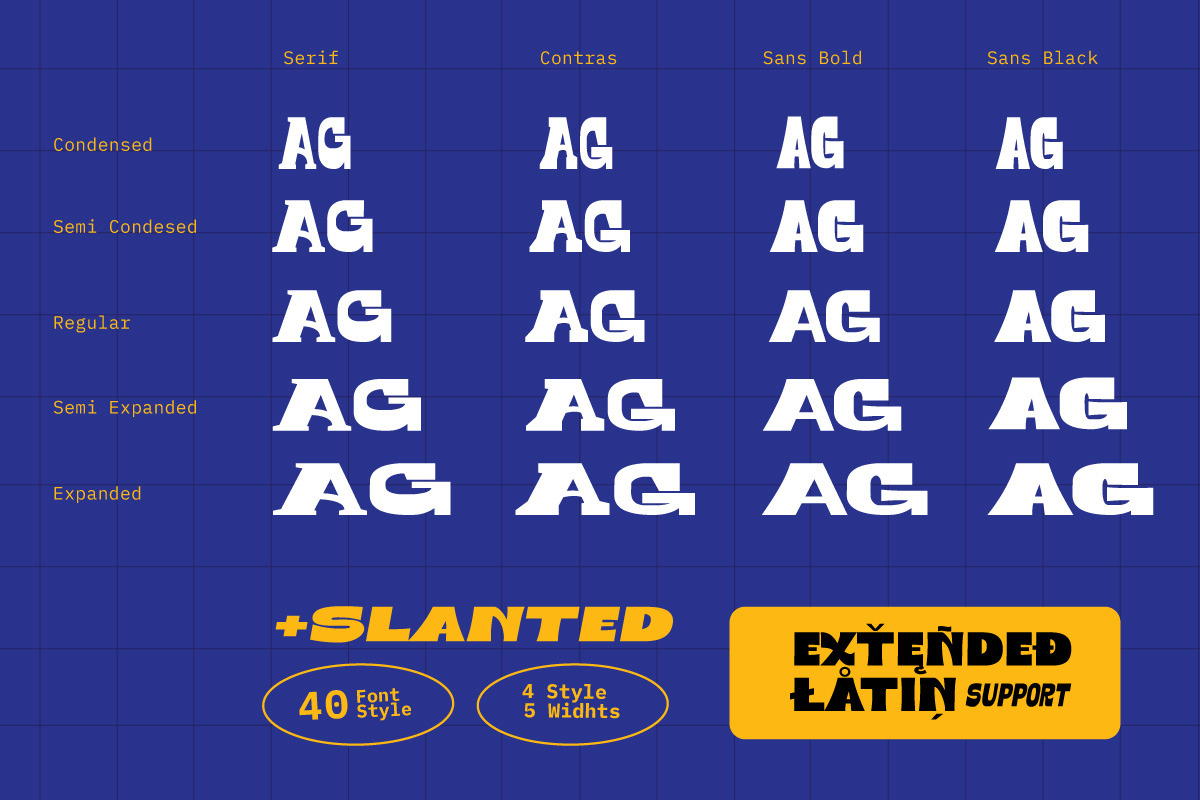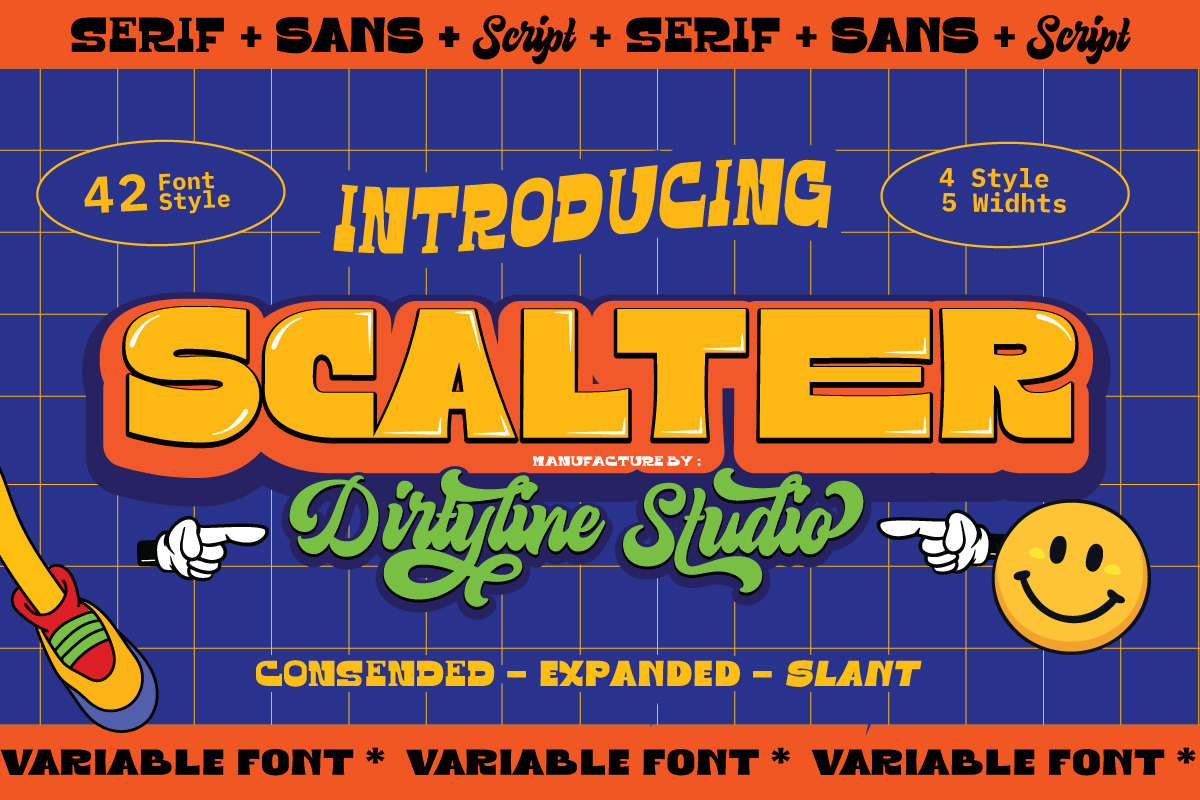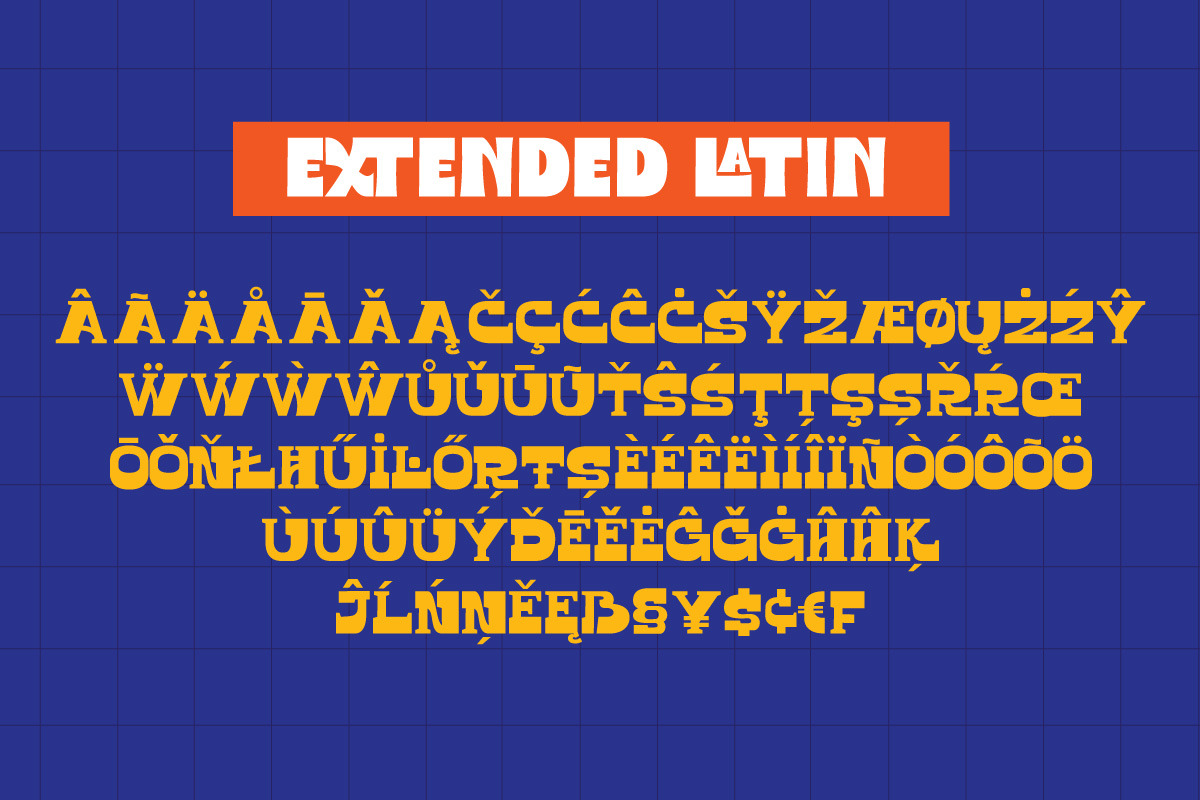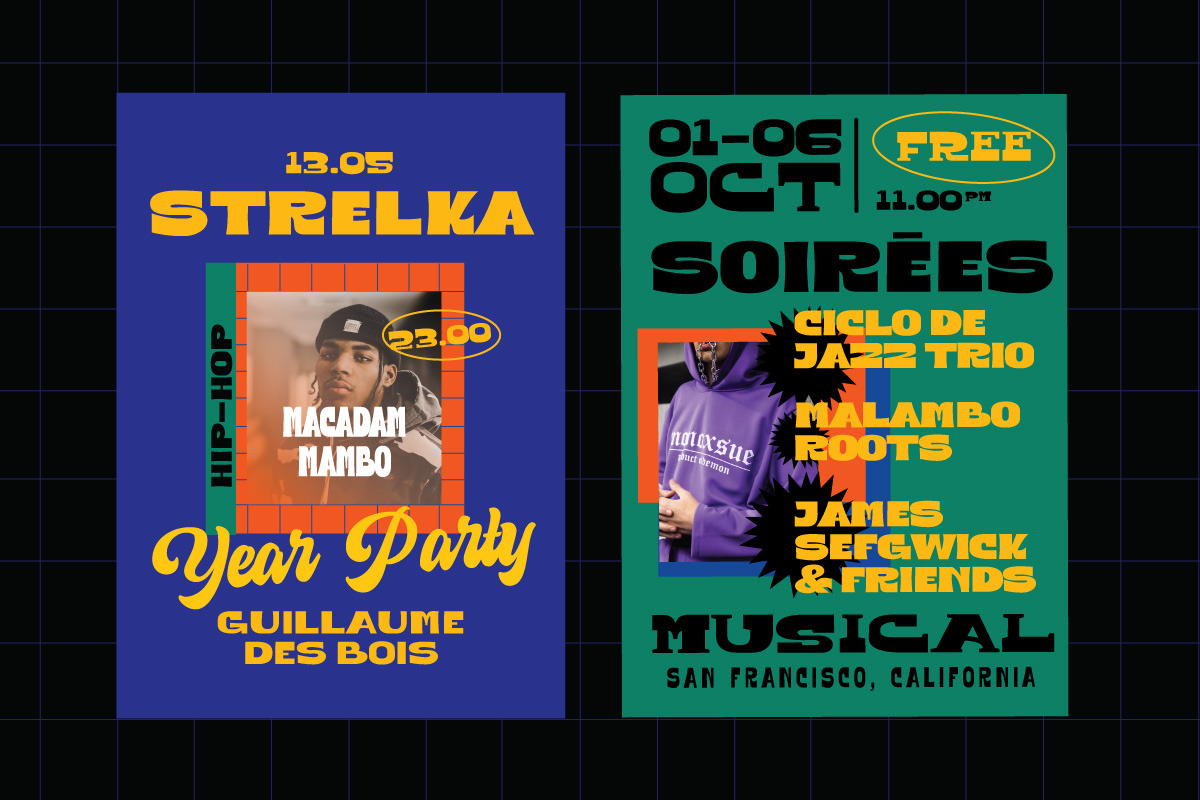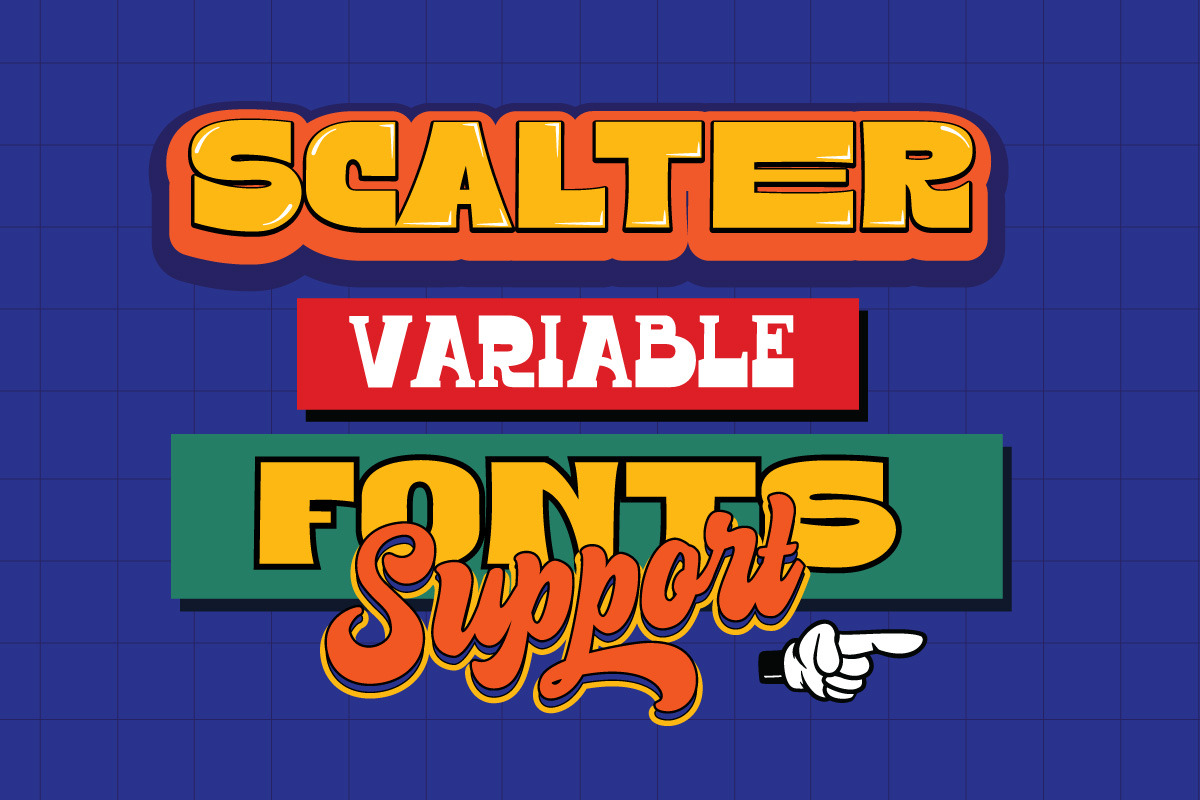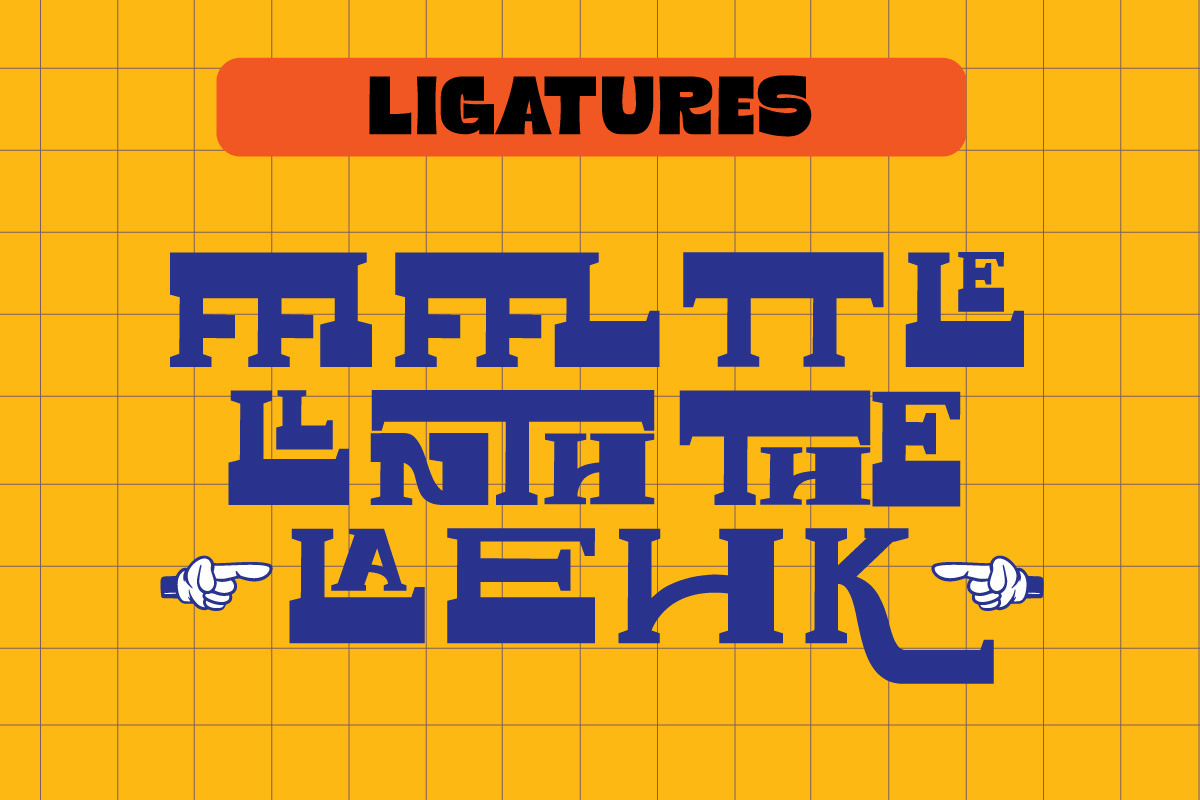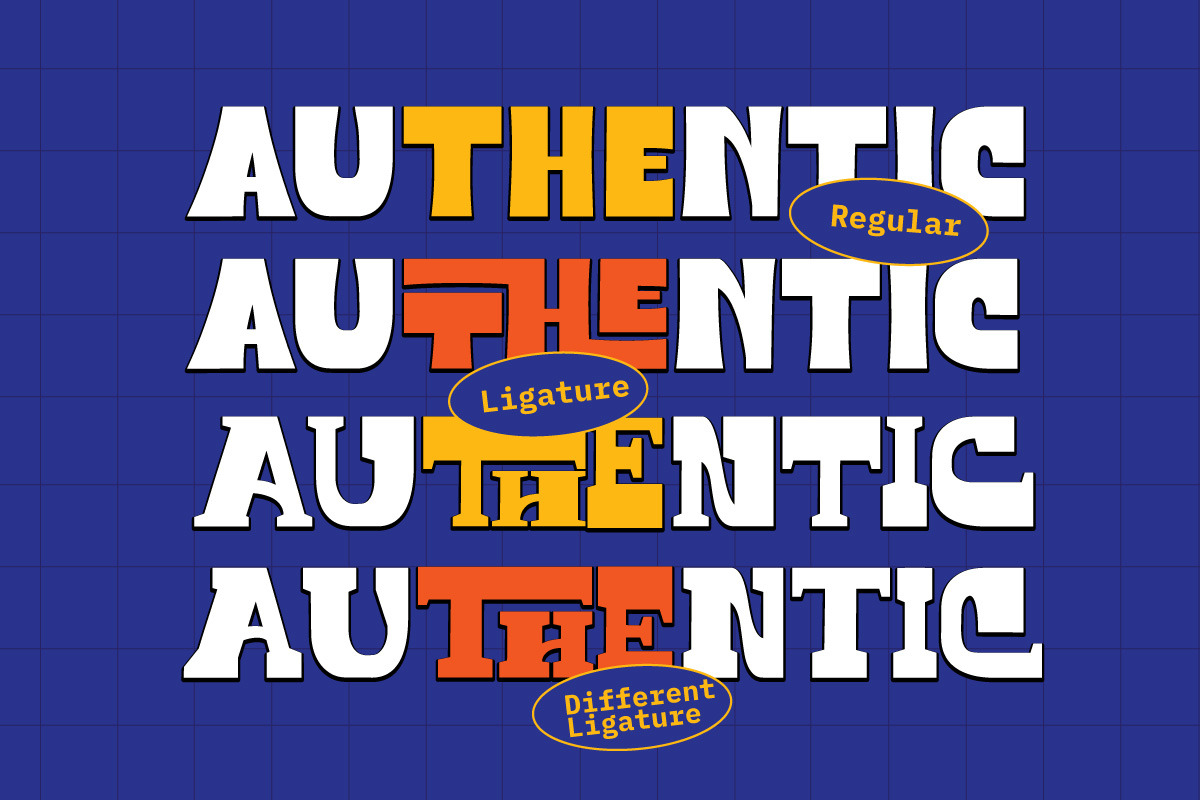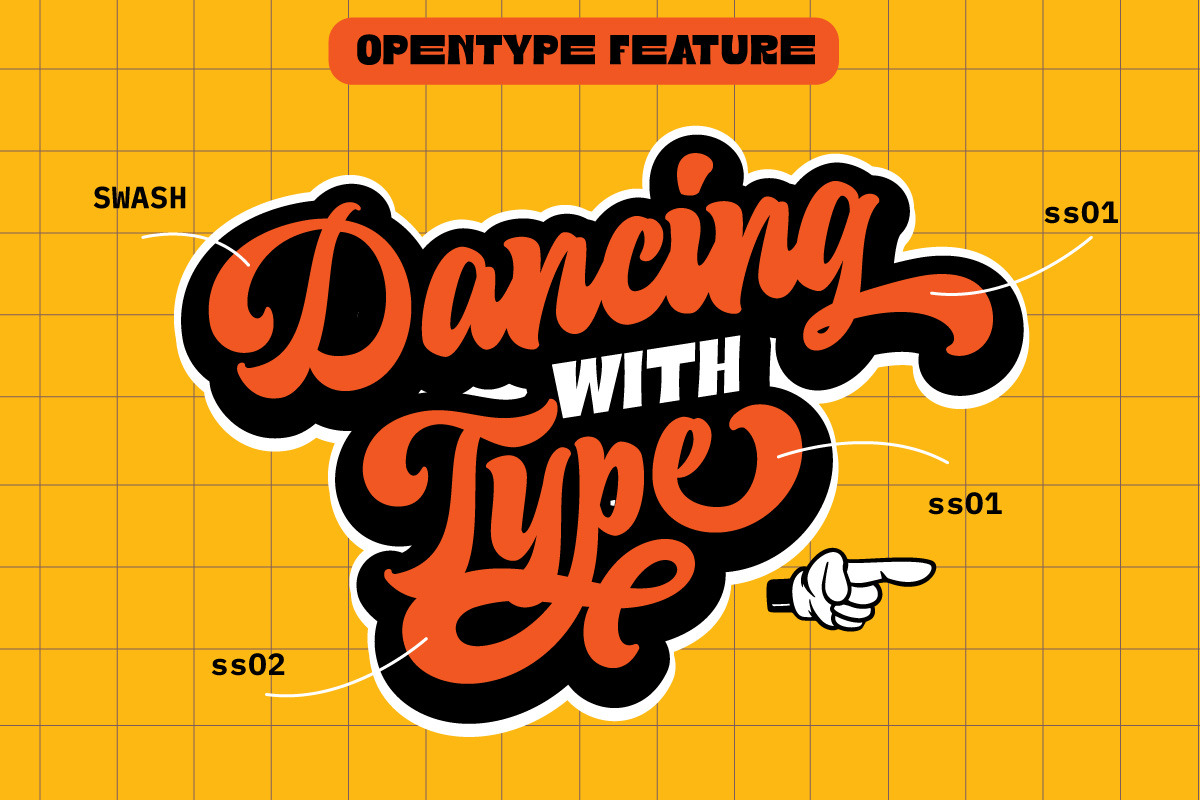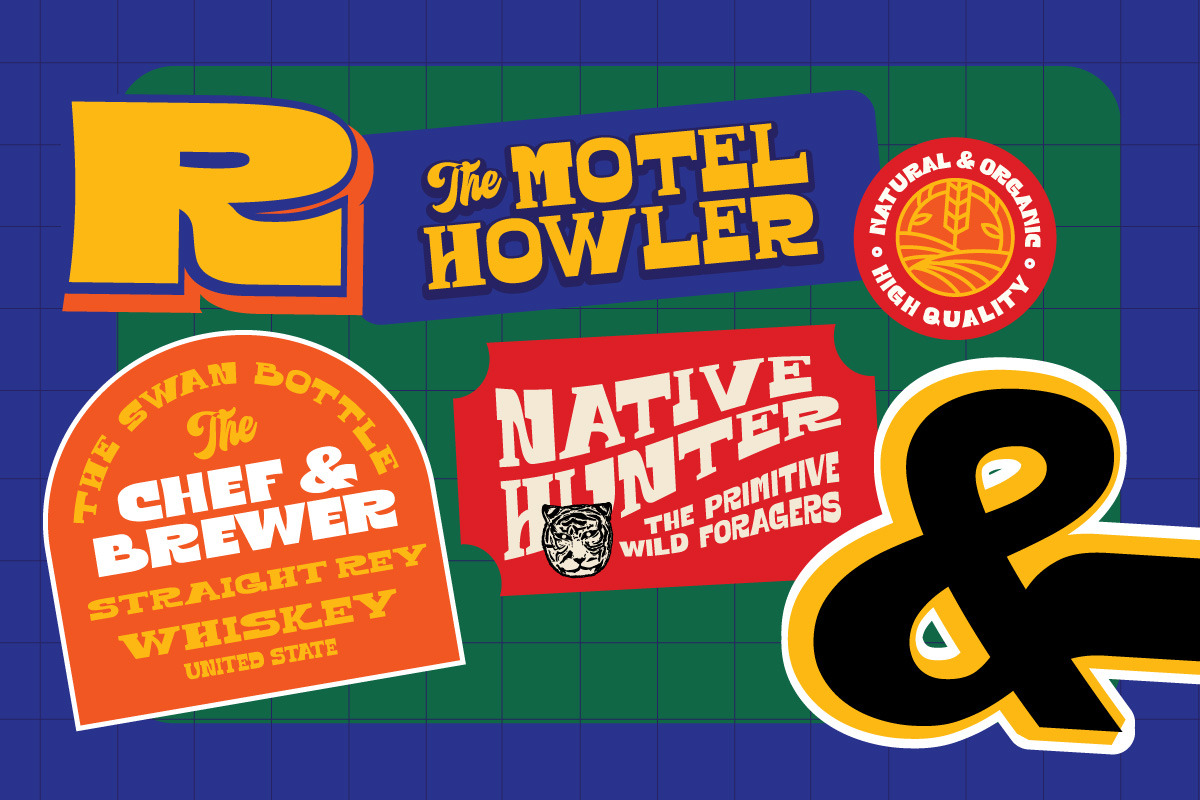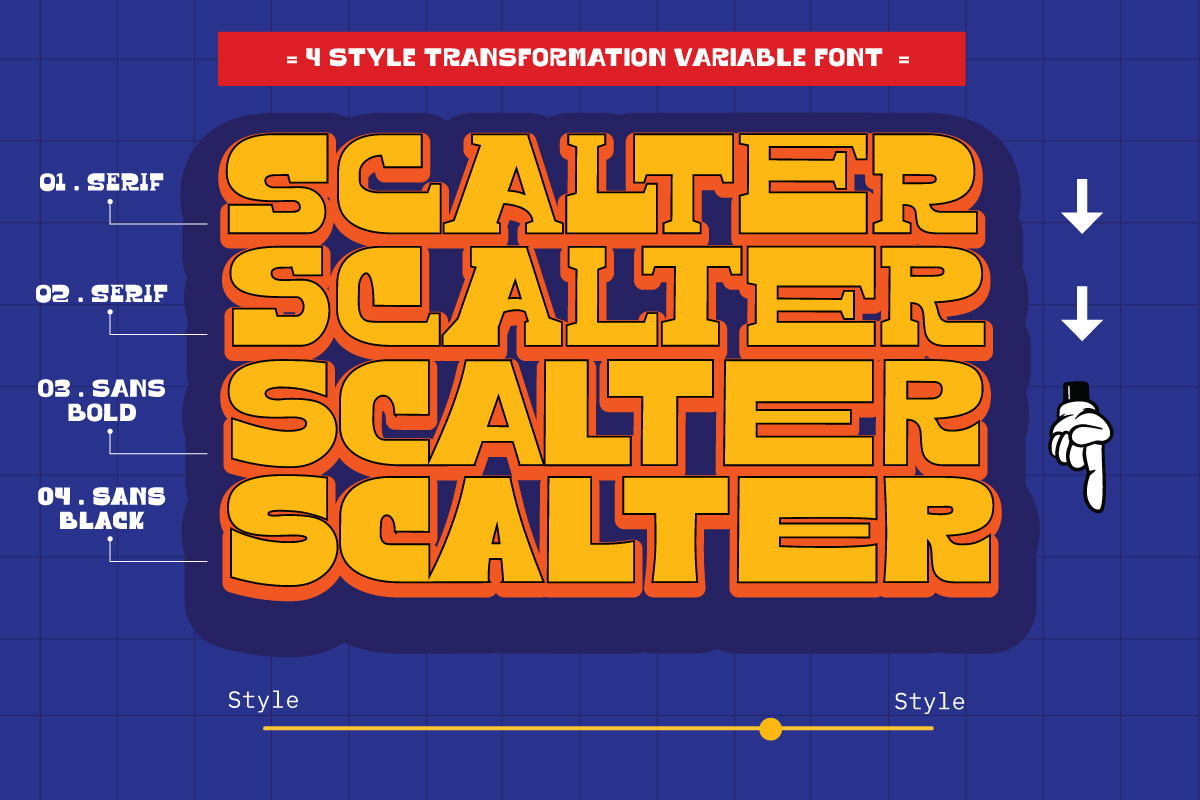
SCALTER was designed in the early April and published in July 2020. Scalter Serif is inspired by the characteristics American vintage sign then the sans serif it’s combination retro typeface. All shape of this typeface is make strong and more contrast, giving a more dynamic and retro feel.
Scalter are available in 5 Widths (Condensed – SemiCondensed – Normal – SemiExpanded – Expanded) with matches 4 style (Serif – Semi Serif – Sans Bold- Sans Black - Script) with a total 42 Styles. Also includes support for 26+ Latin (Extended) Languages.